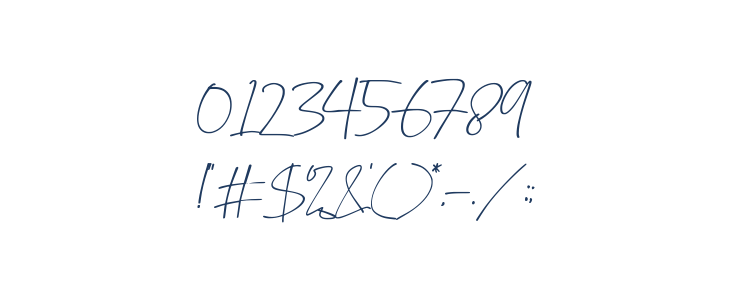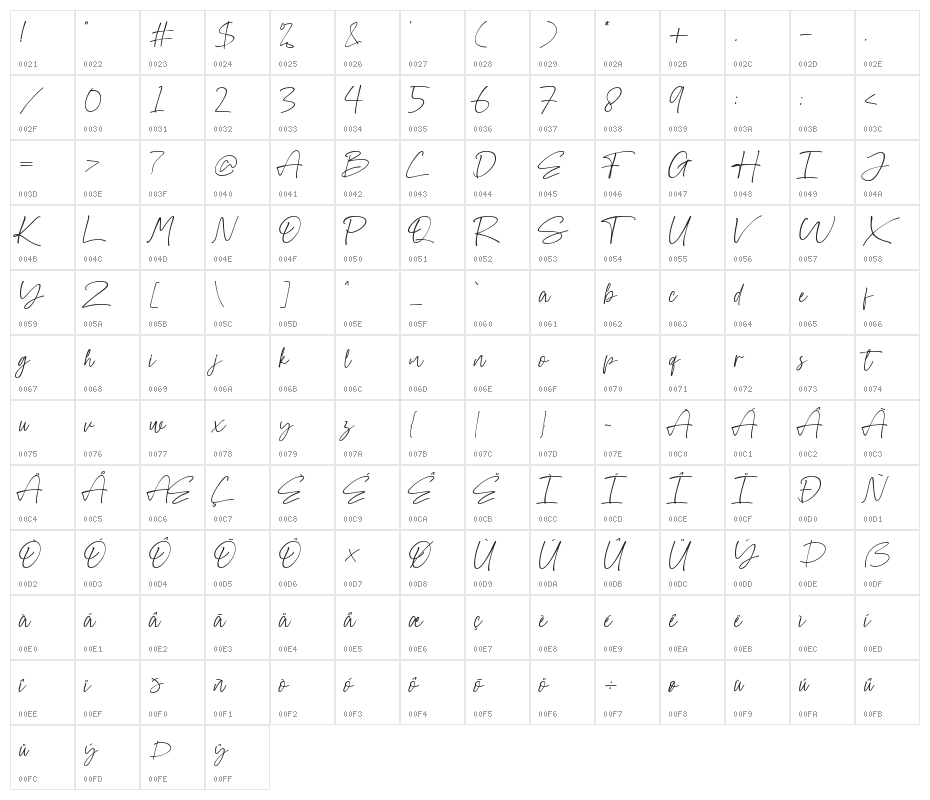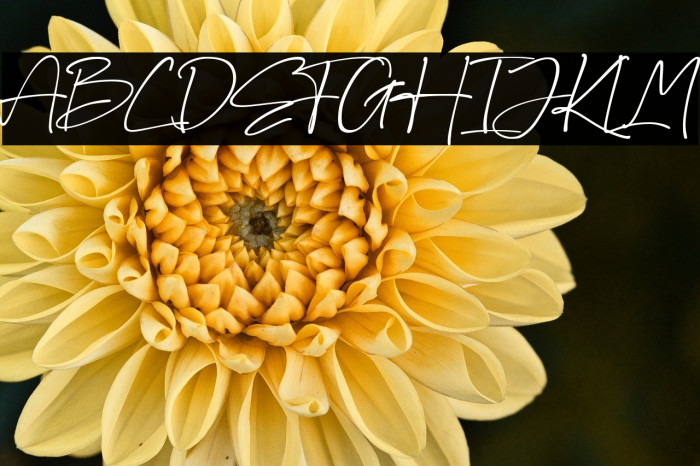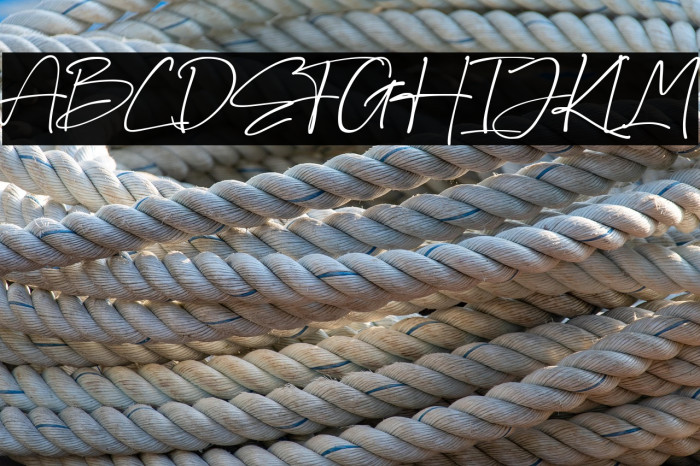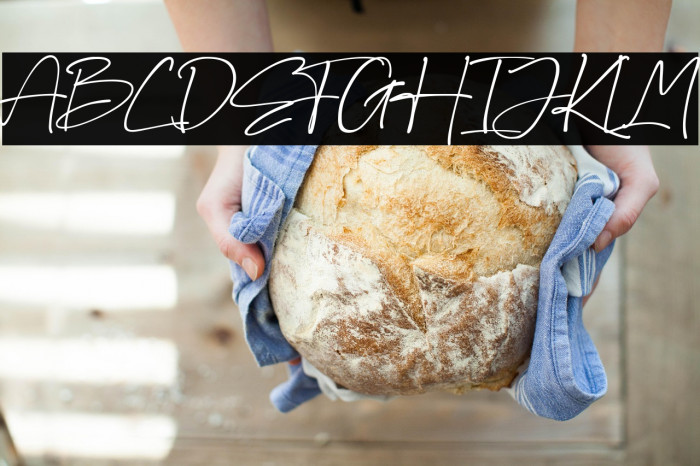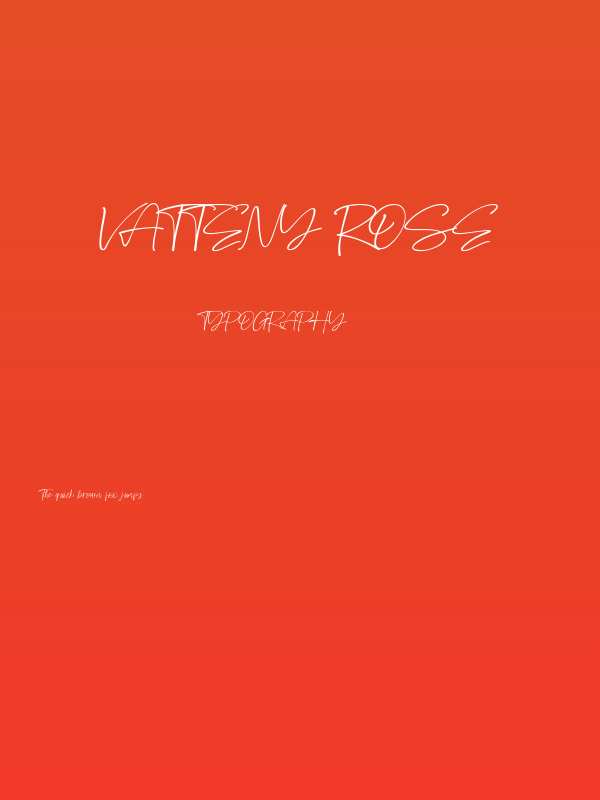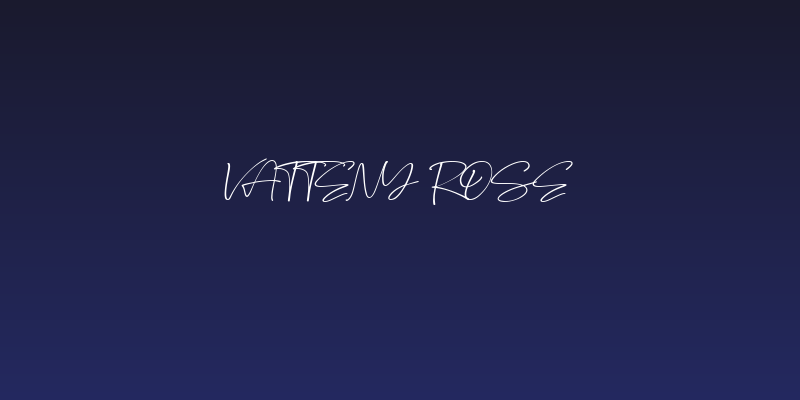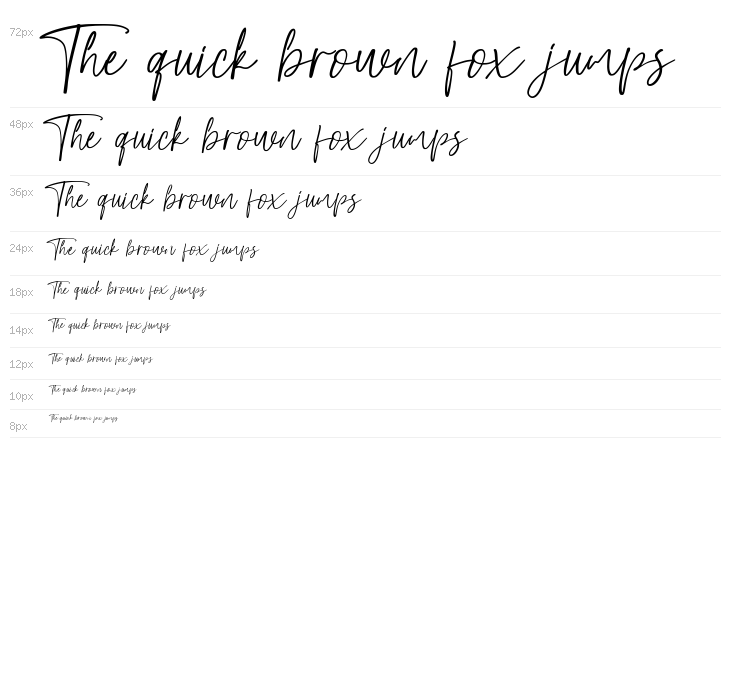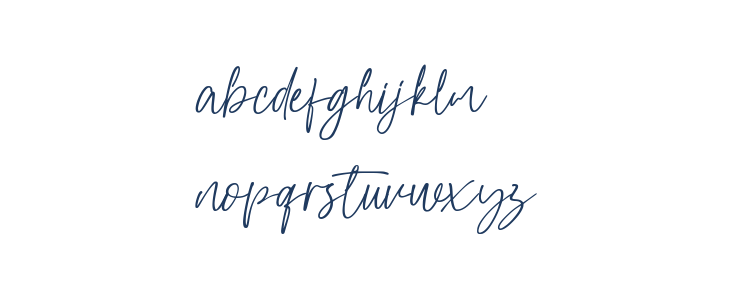
Vatteny Rose Font
Vatteny Rose Description
This font features a flowing, cursive style with a handwritten aesthetic. The characters are elegantly crafted with smooth, continuous strokes that give a sense of fluidity and grace. The uppercase letters are bold and expressive, while the lowercase letters maintain a delicate and refined appearance. Numbers and special characters are designed to complement the overall script style, maintaining consistency in their curves and lines. The font exudes a personal and artistic touch, making it ideal for creative and expressive projects.
| Use Case | Logos, Invitations, Artistic projects |
| Proposed Projects | Ideal for wedding invitations, greeting cards, personal branding, and artistic projects. |